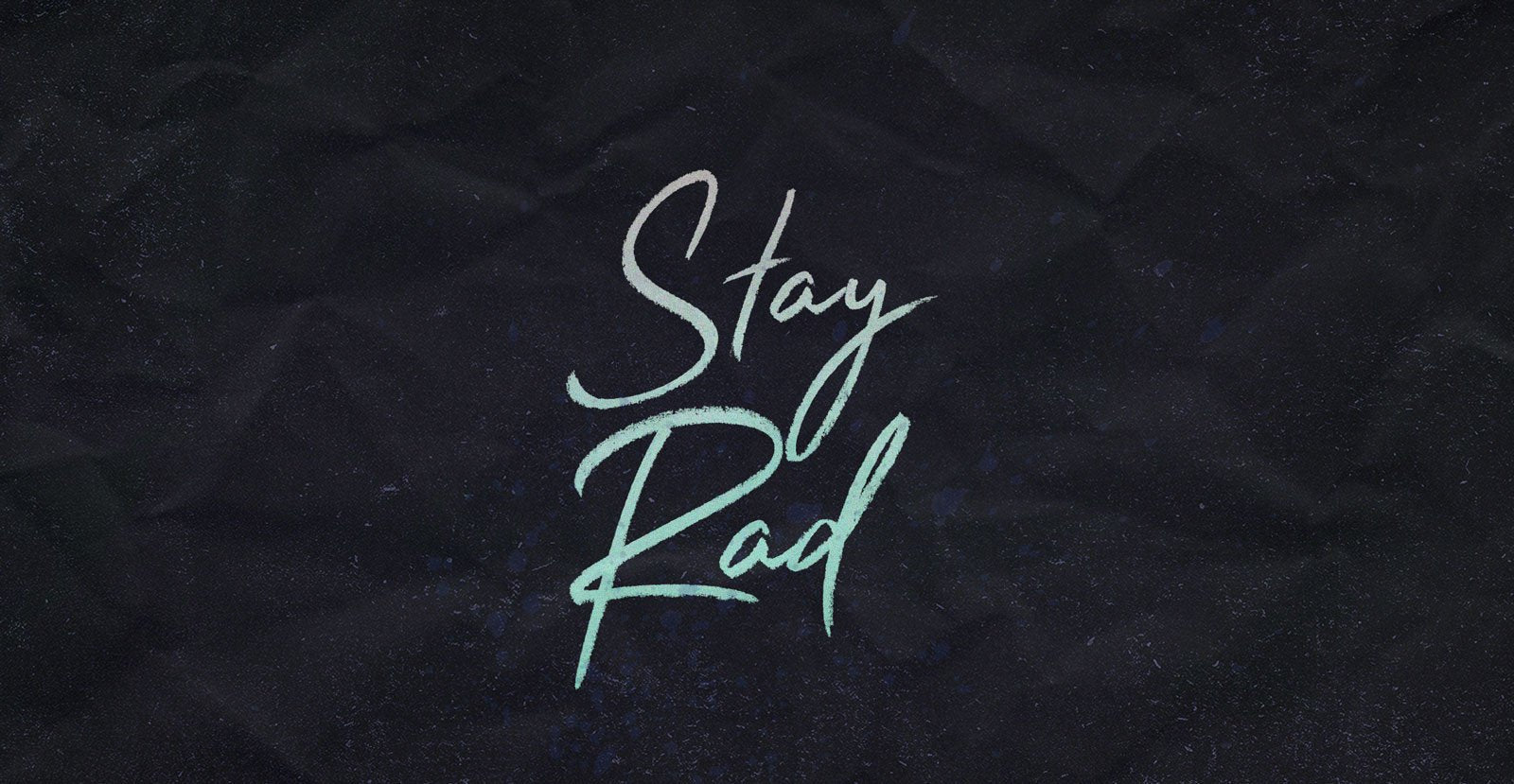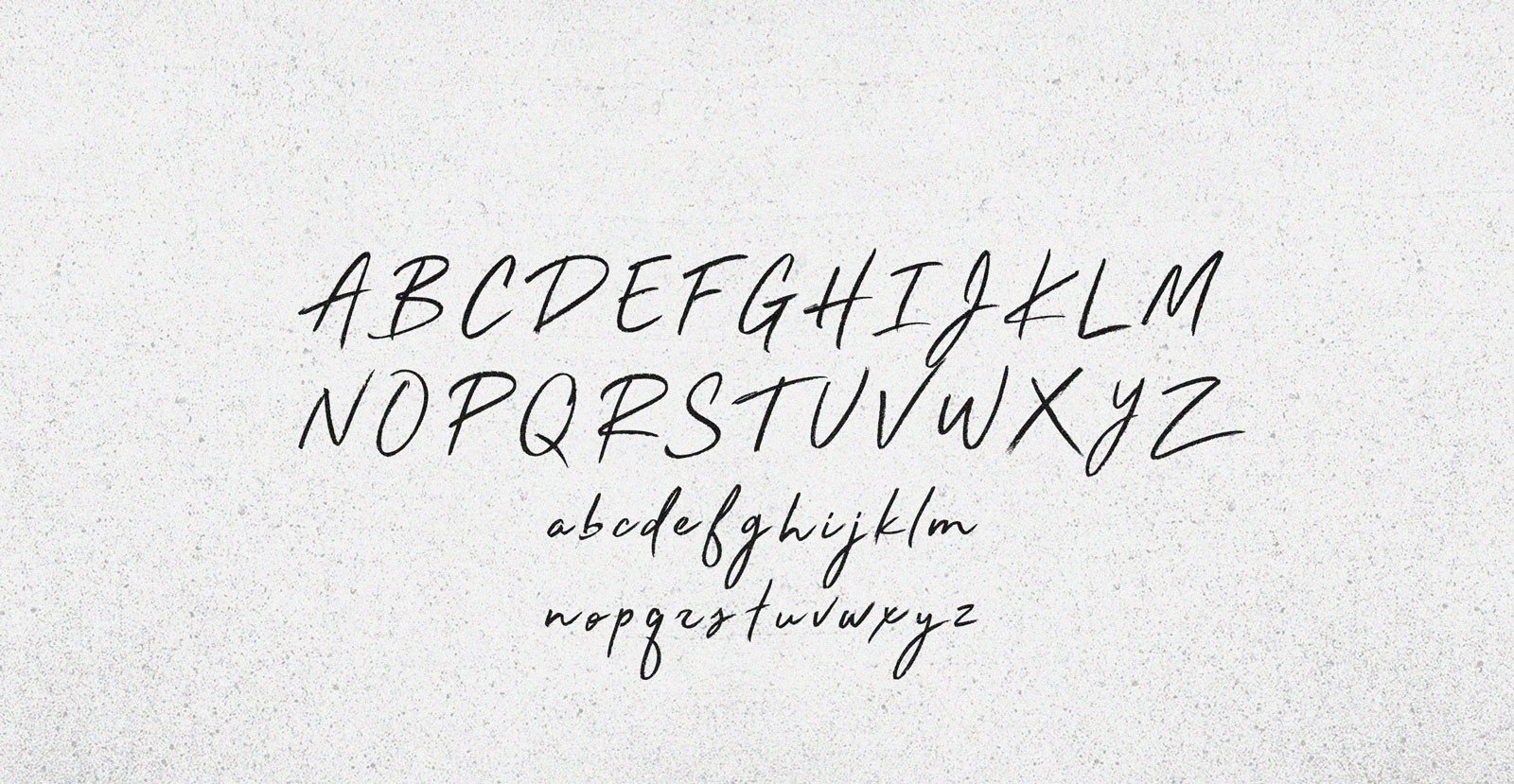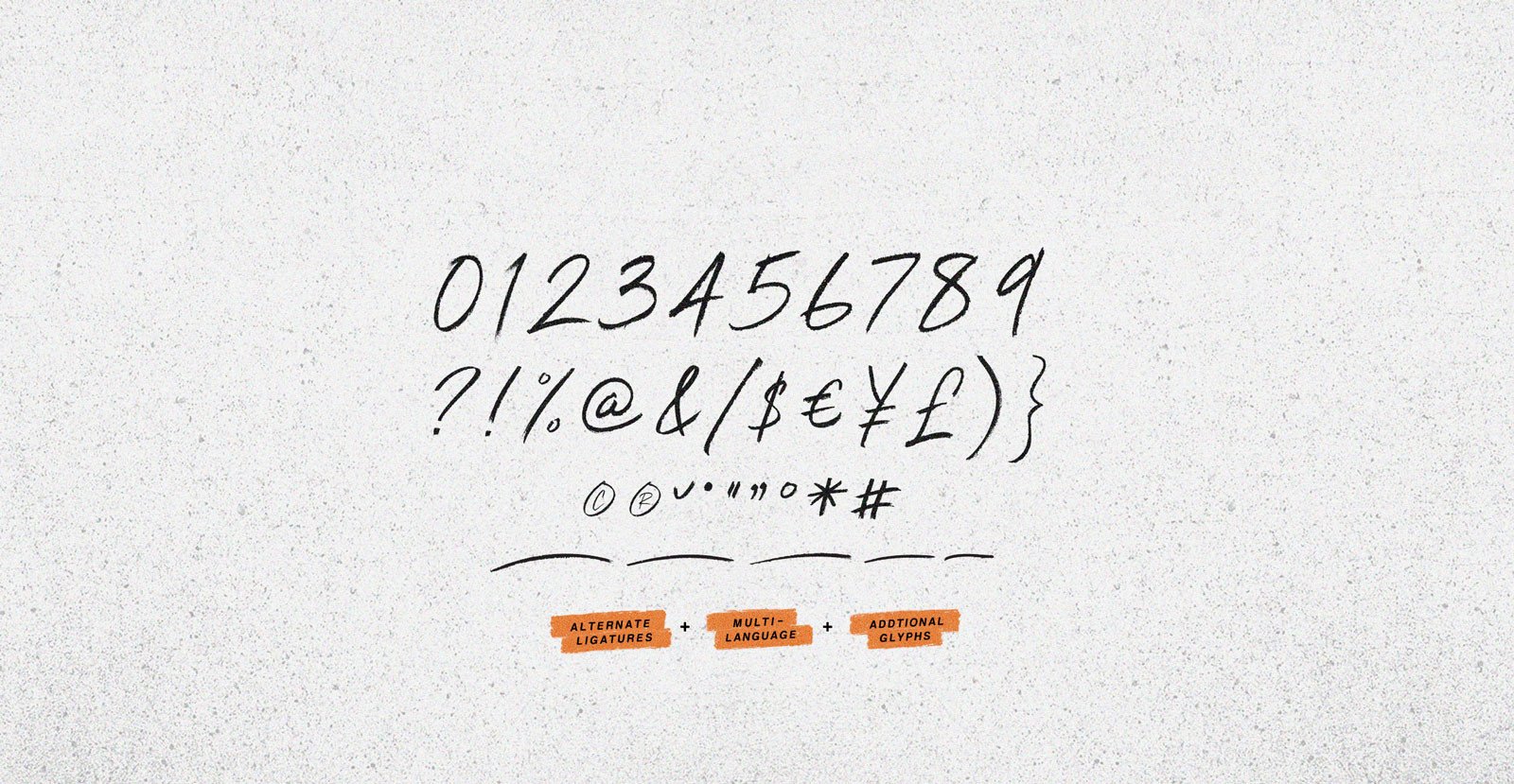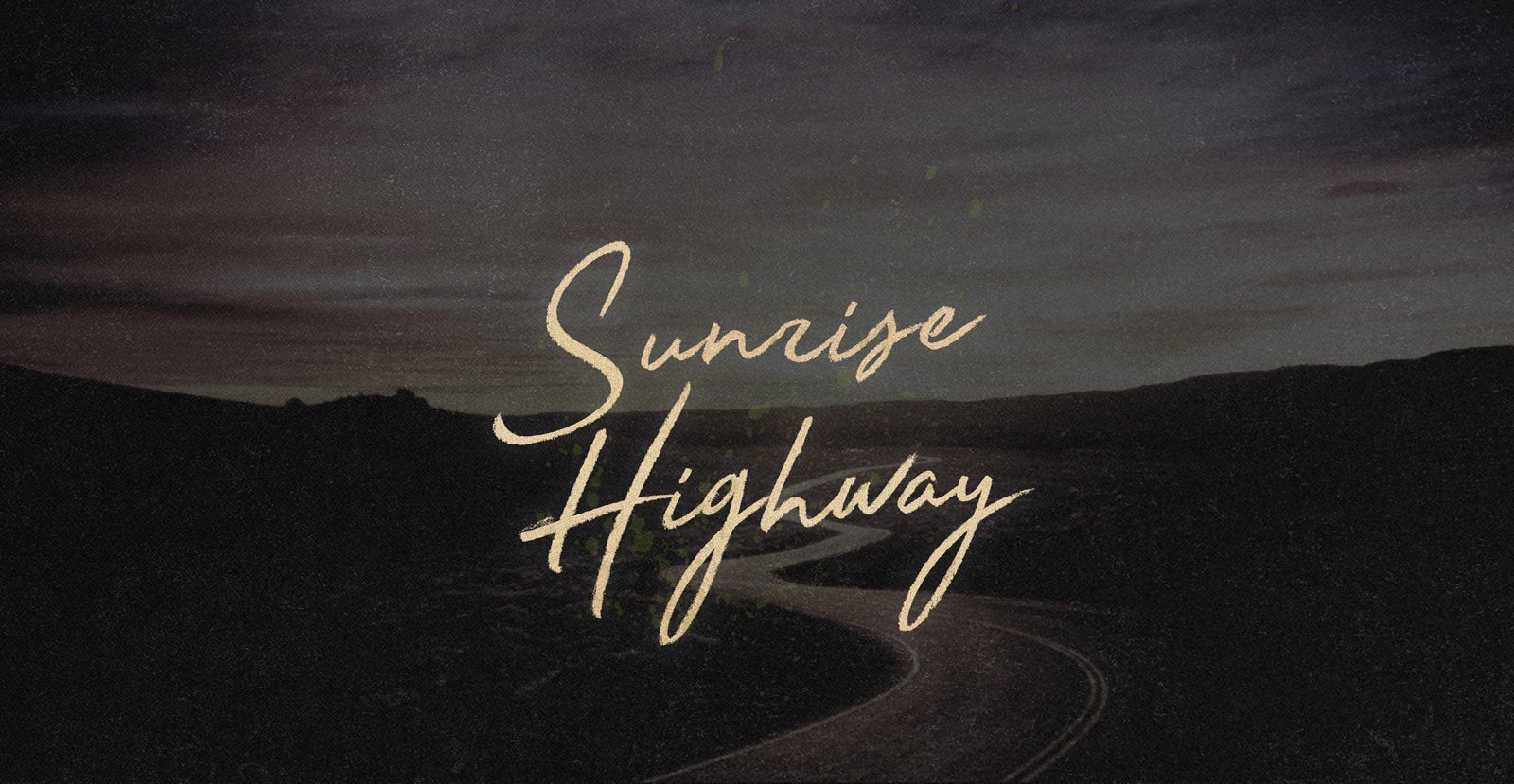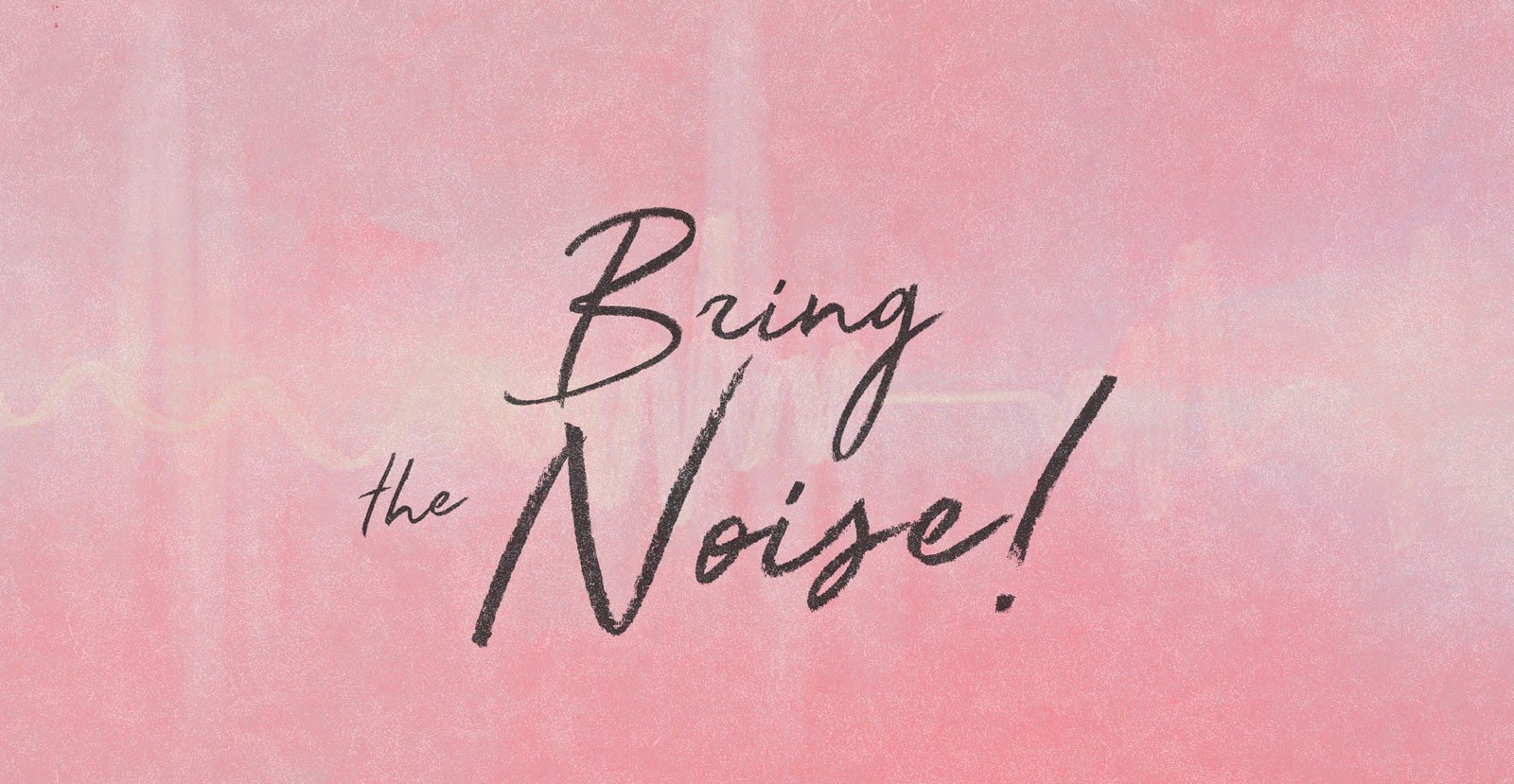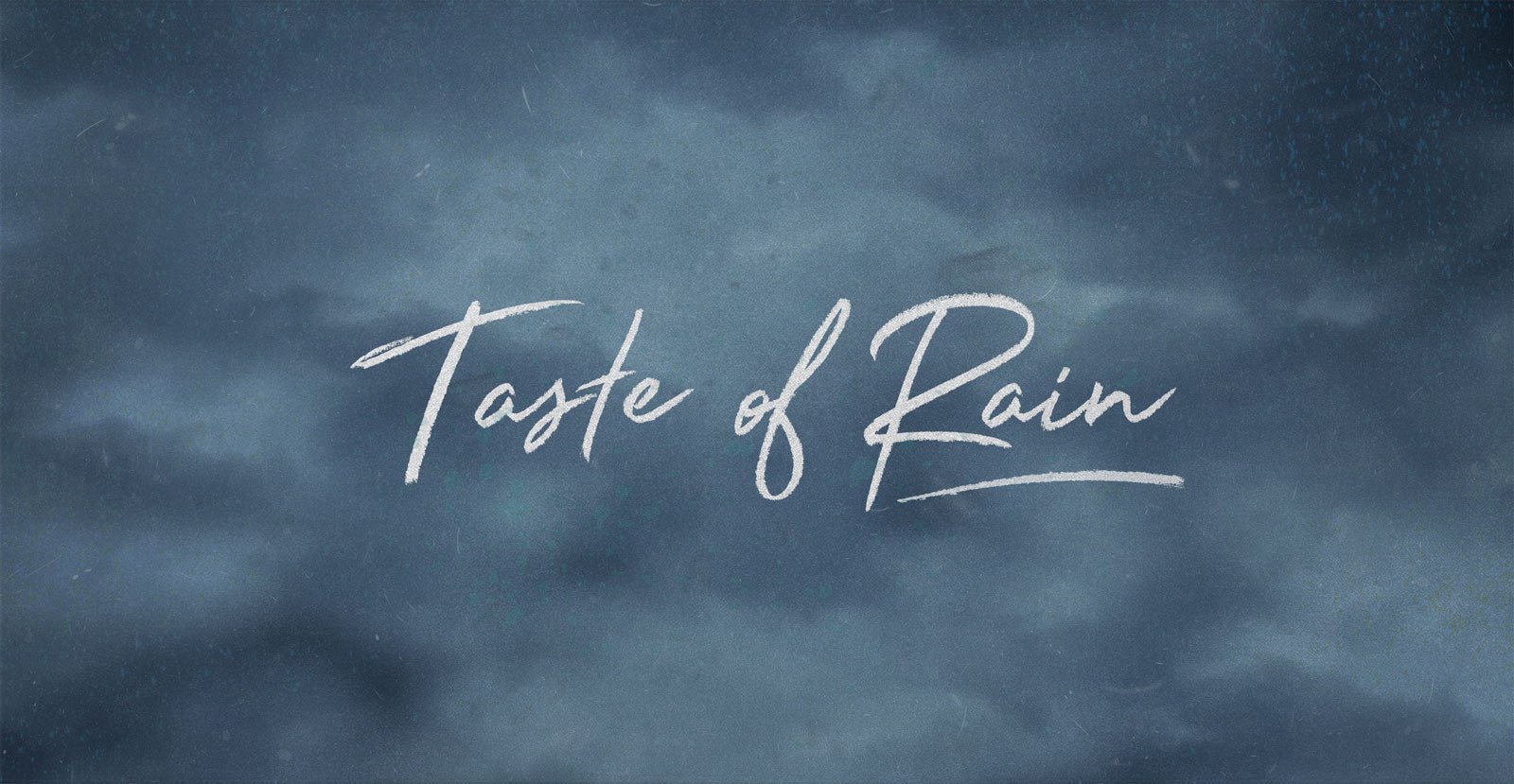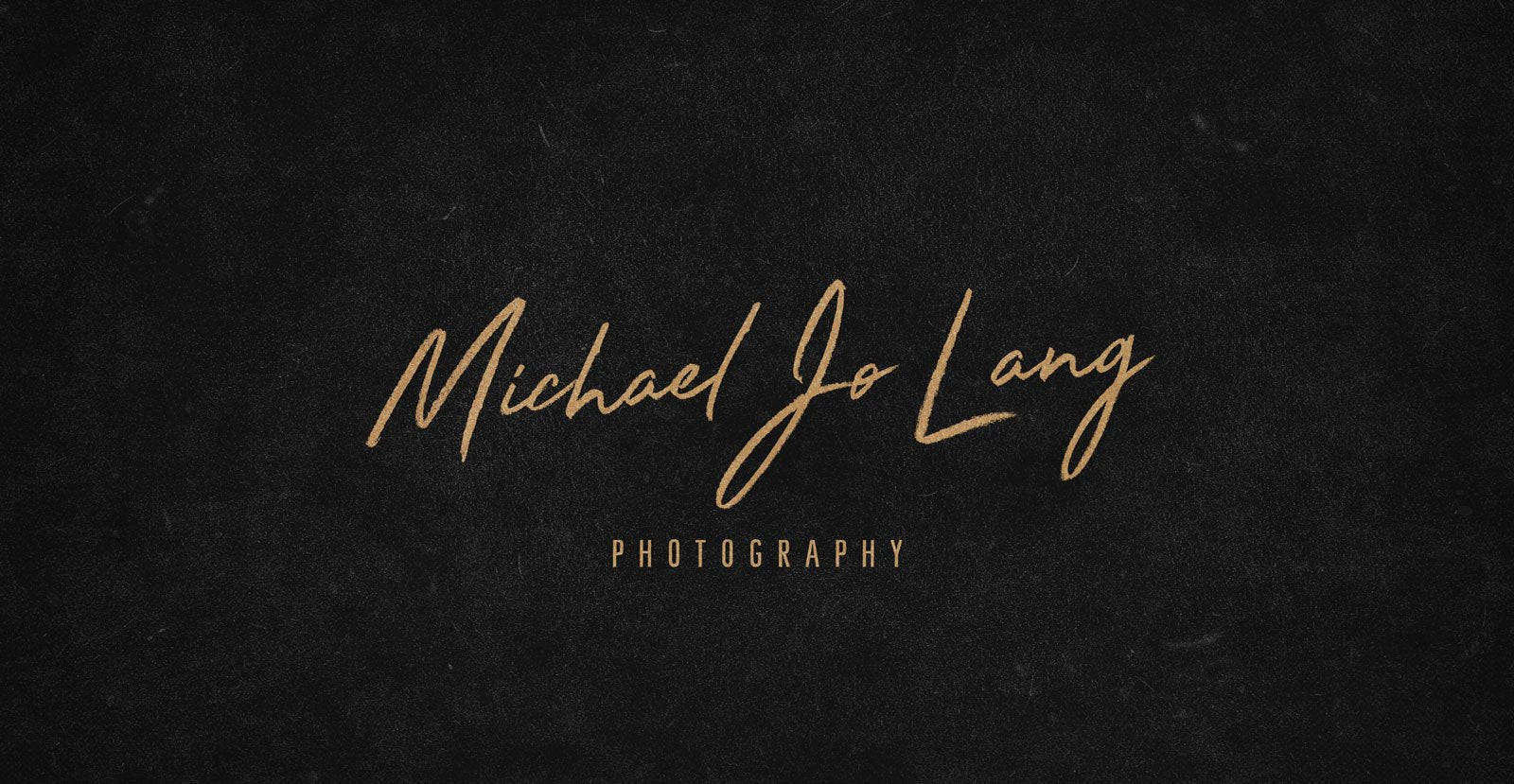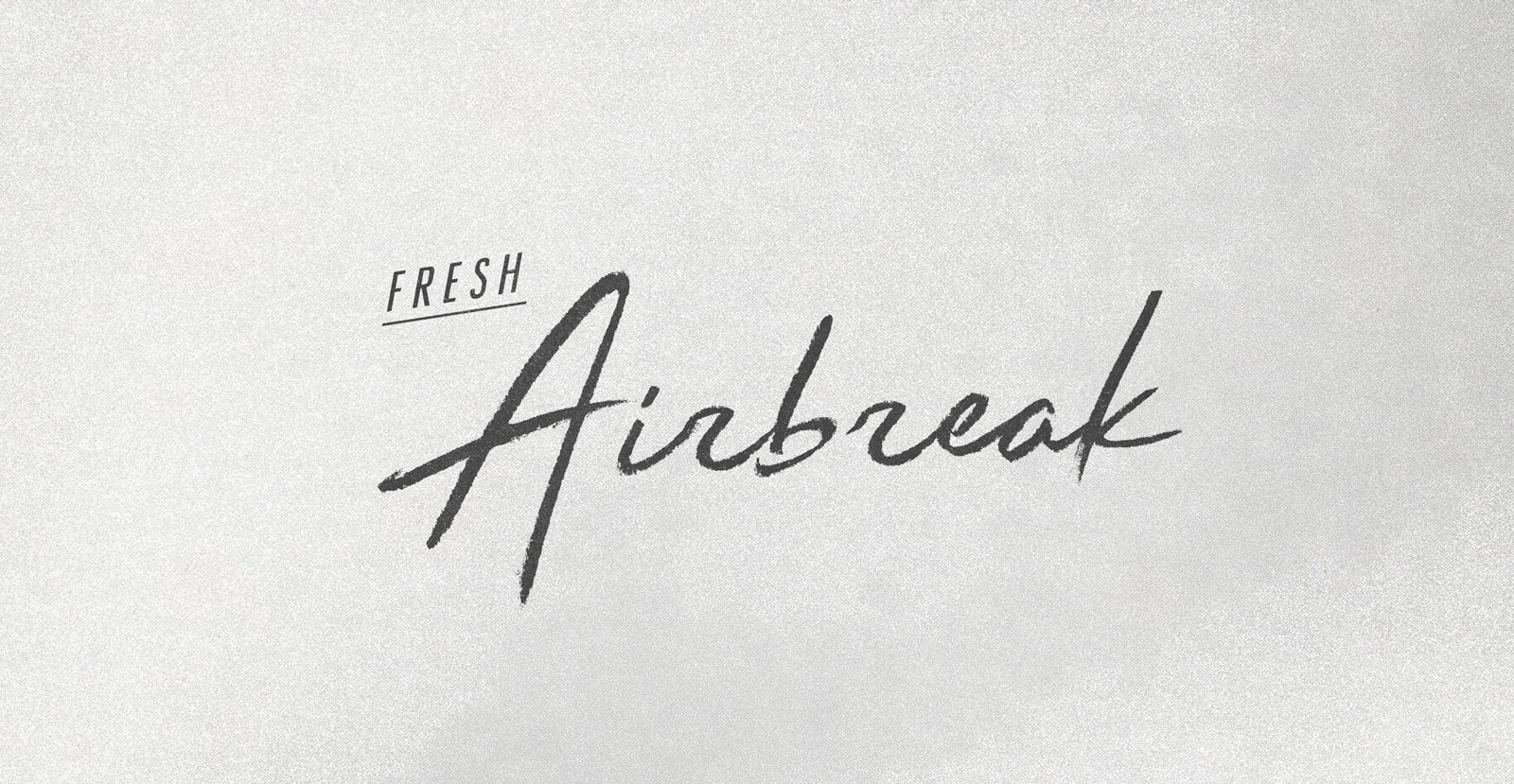
Stay Rad
Remember: you're living proof that you always have been and always will be with it. The way you were with it before will always be with it. Context is just regular text trying to bring you down. You are a timeless statement of awesomeness. Sincerely yours, Stay Rad.